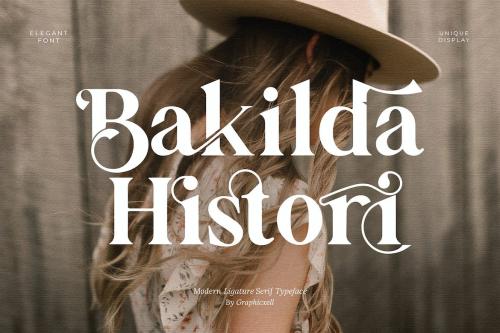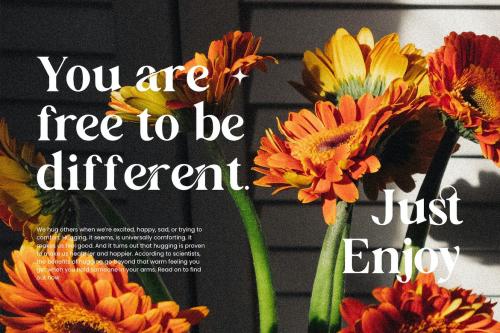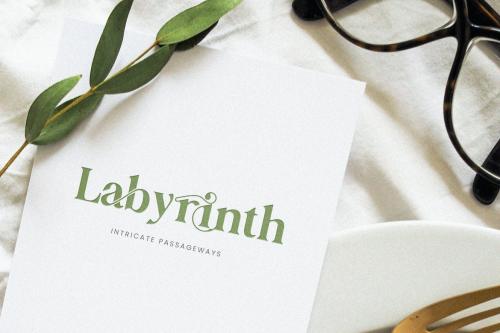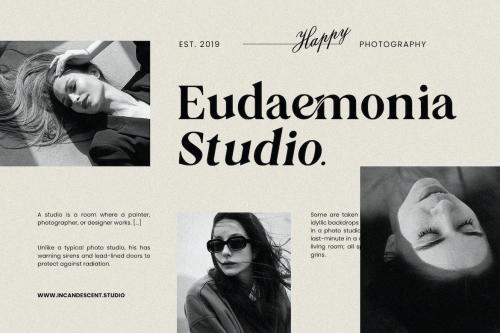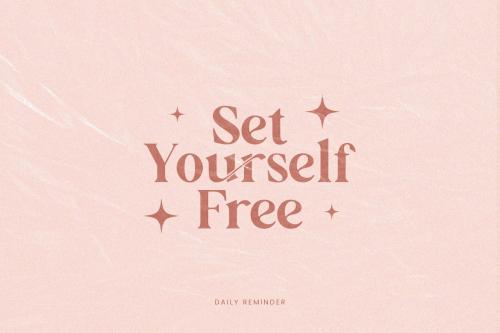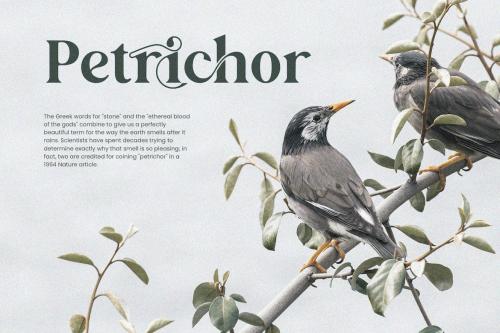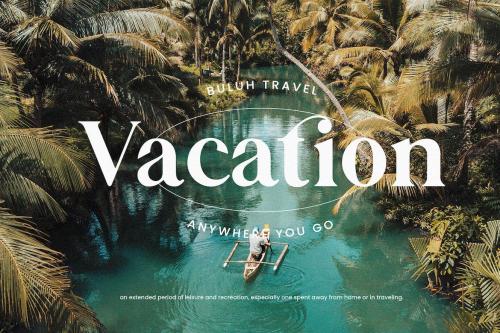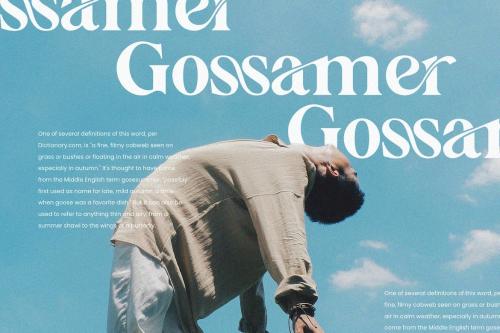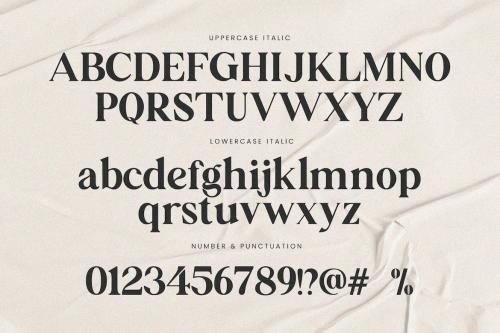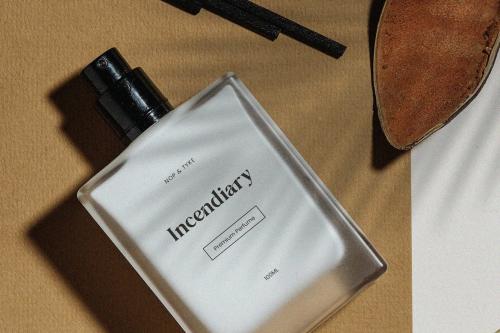
bakila de histeri serif font
Bakilda Histori Serif Font
**Bakilda Histori Serif Font** inspired by the famous minimalist logo perfect for the purposes of designing templates, brochures, videos, advertising branding, logos, invitation, layout design, elegant crafting, beauty design and more.
+ Ligatures